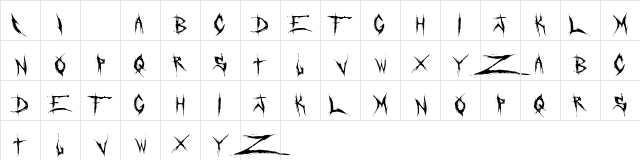
DeadBitch Regular
| Foundry | GKDN |
| Designer | Chris Vile |
Design Context for DeadBitch Typeface
DeadBitch is a composed and adaptable typeface that performs quietly and consistently across a wide range of design contexts.